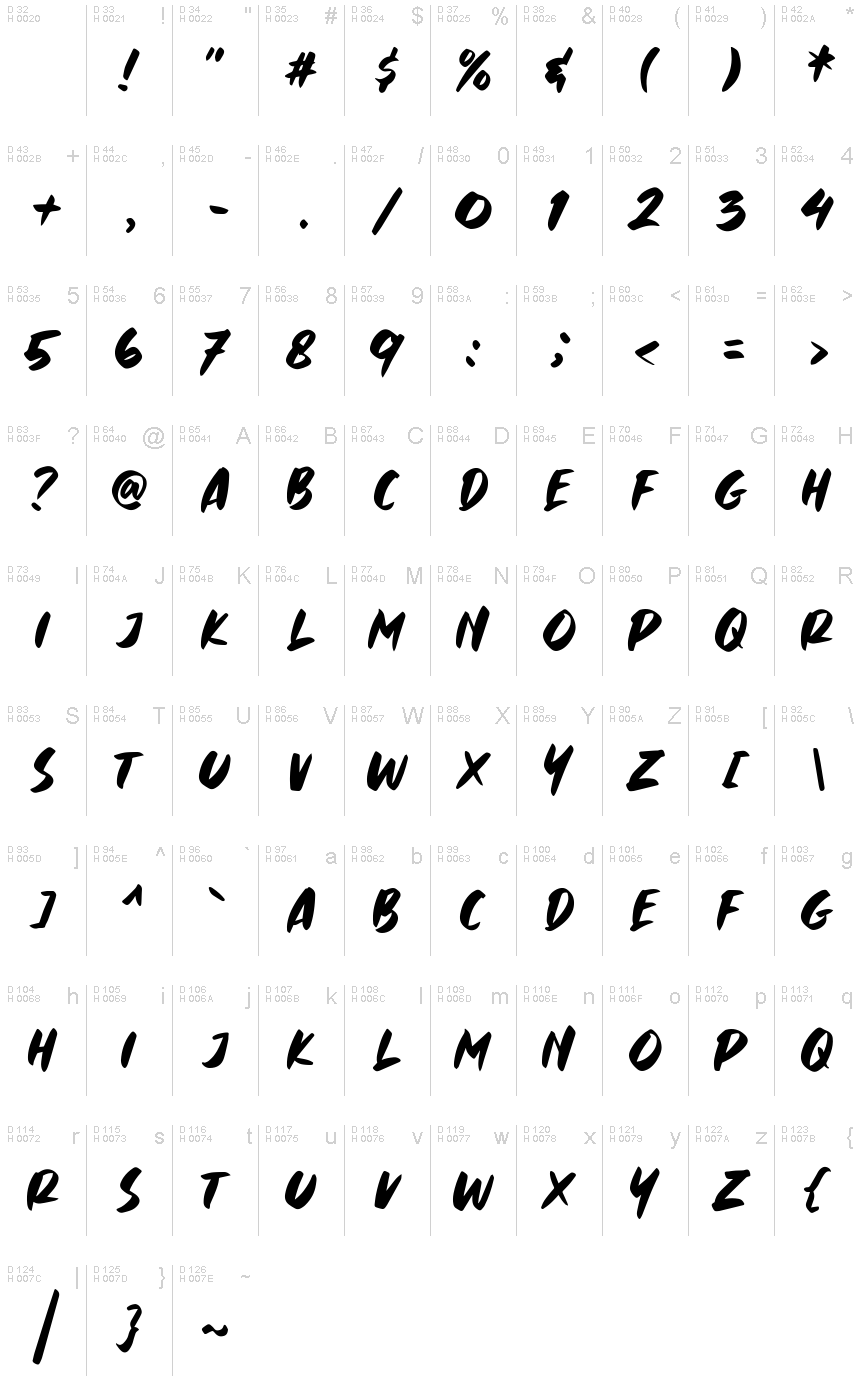
Trusto
Trusto font, crafted by Excellent Ritma Florendia, embodies the lively essence of a bold brush style. Its hand-written charm delivers a casual yet striking presence, perfect for creating captivating headlines and compelling graphics. This free font excels in both grand displays and nuanced subtleties, whether on a poster, social media post, or merchandising.
Trusto’s distinctive style makes it an ideal choice for logos and t-shirts. The dynamic strokes ensure your designs stand out, while its bold nature provides emphasis, creating an engaging visual punch.
For modern aesthetics, pair Trusto with a clear sans-serif to create dynamic contrasts that highlight its unique character. Download Trusto today to elevate your project’s appeal and captivate your audience with its vibrant personality.
Feature:
-Standard minimal English character. (!#$%&()*+,-./0123456789:;?@ABCDEFGHIJKLMNOPQRSTUVWXYZ[]^`abcdefghijklmnopqrstuvwxyz{|}~߆)